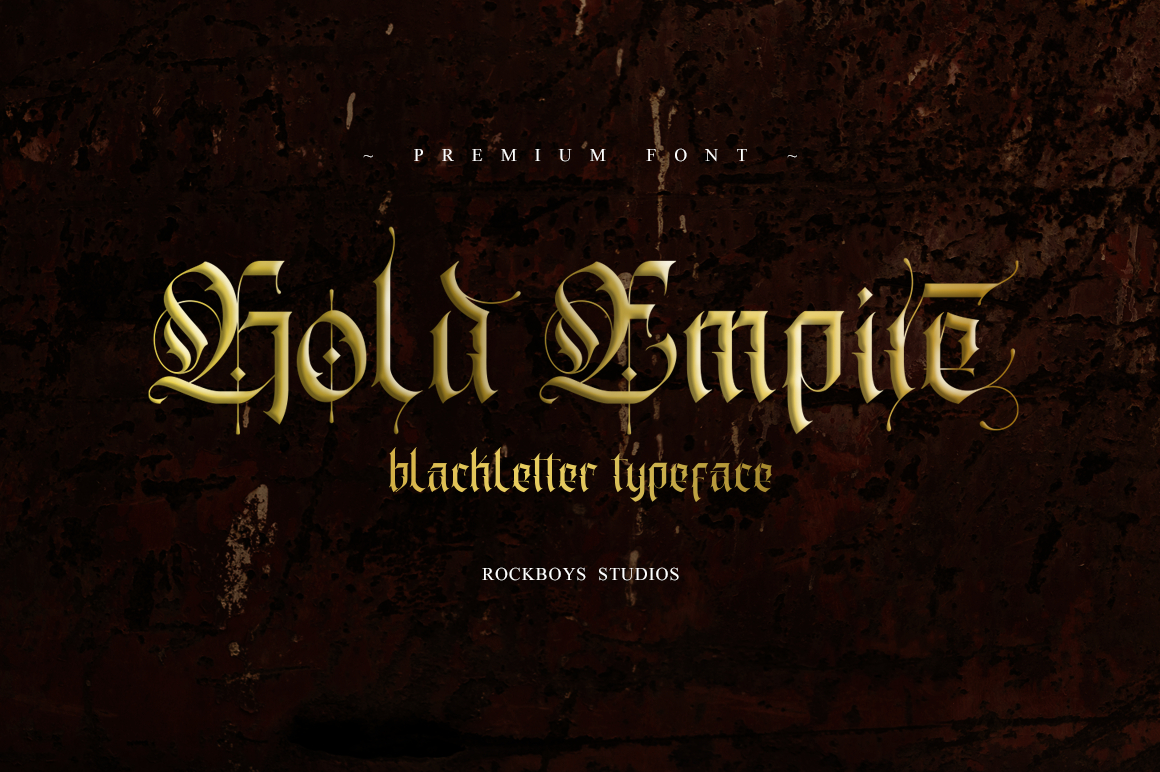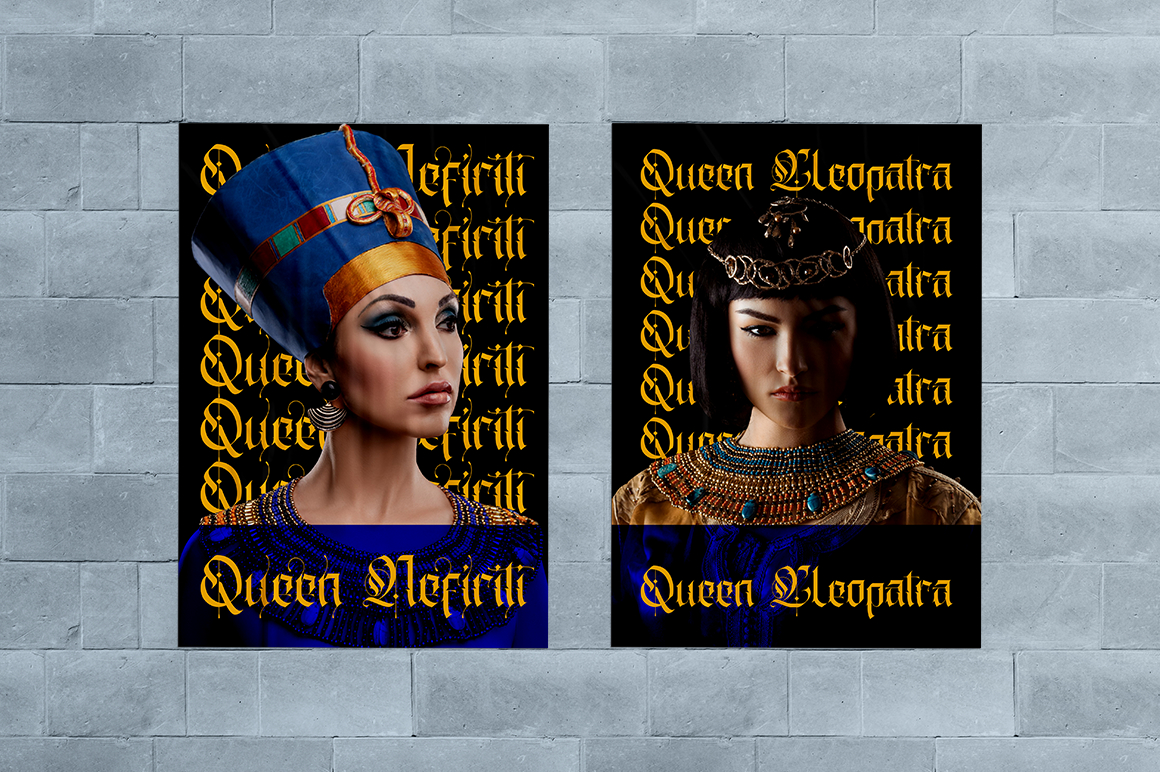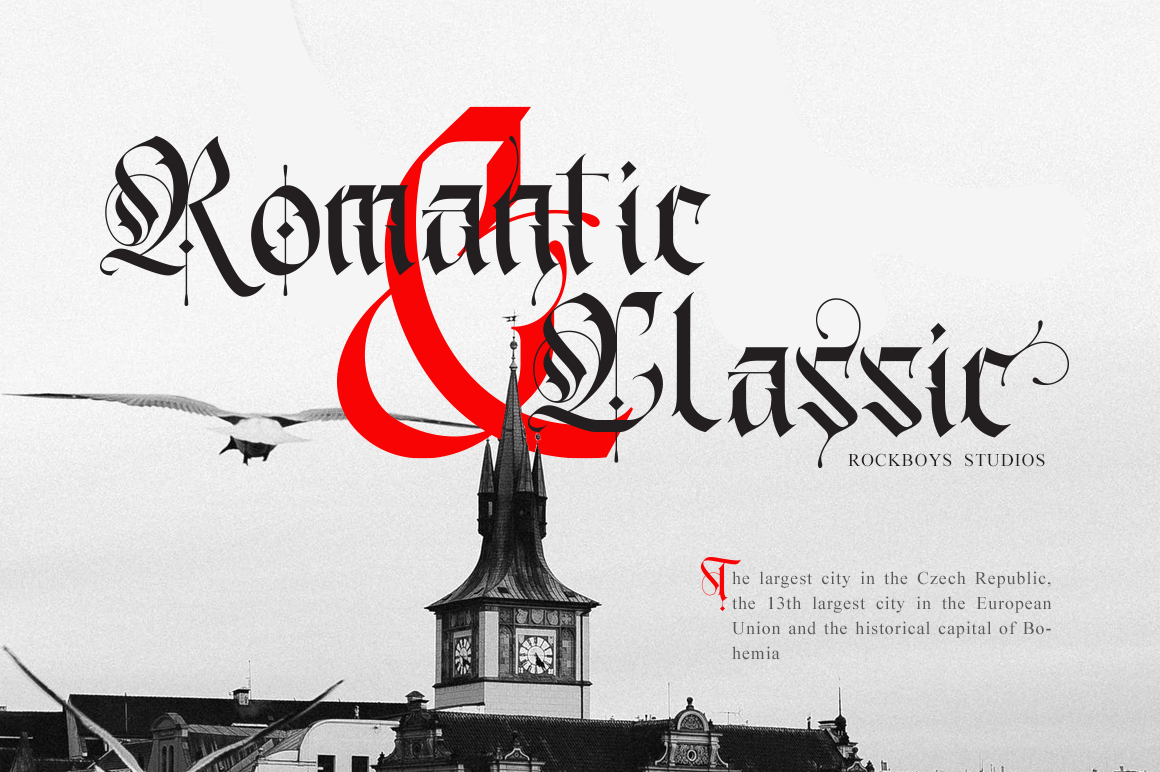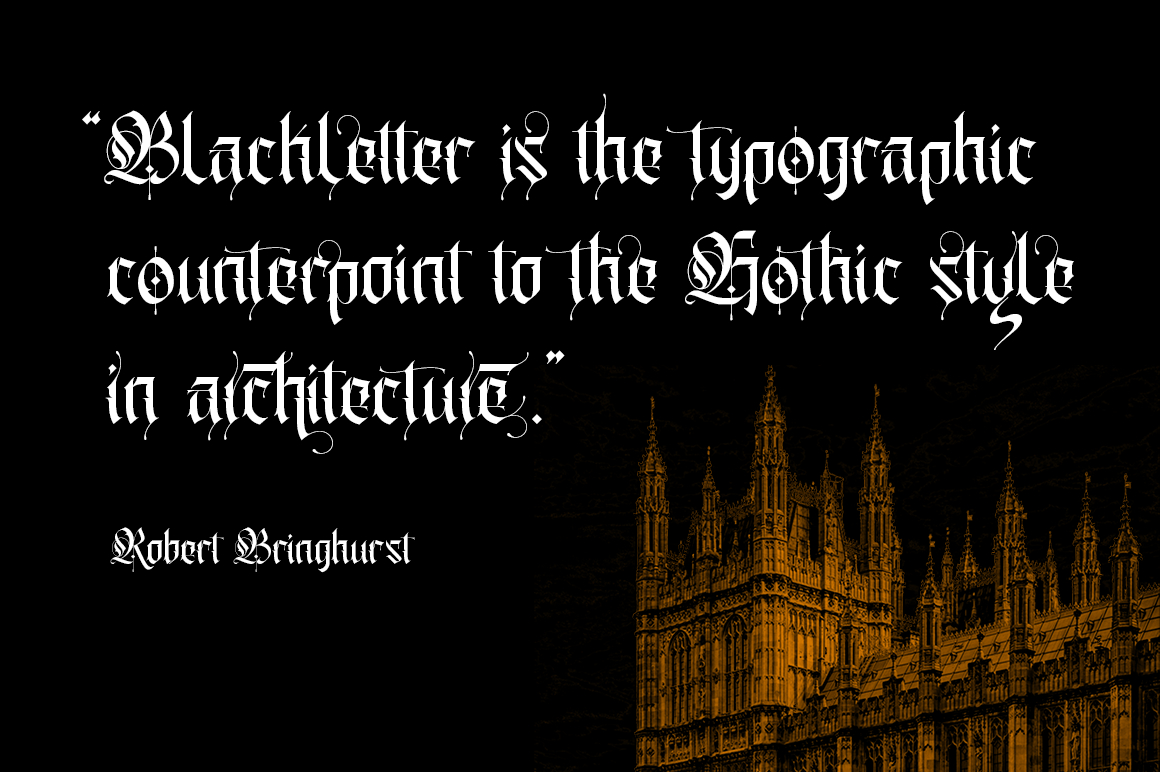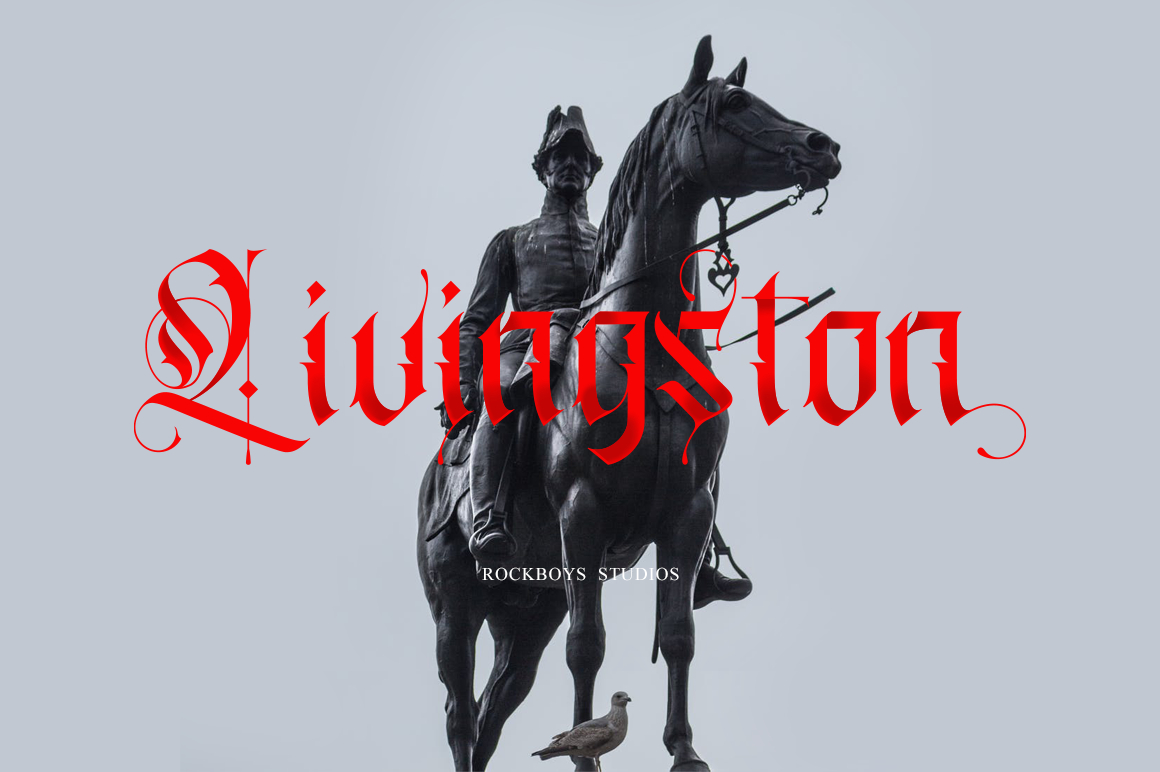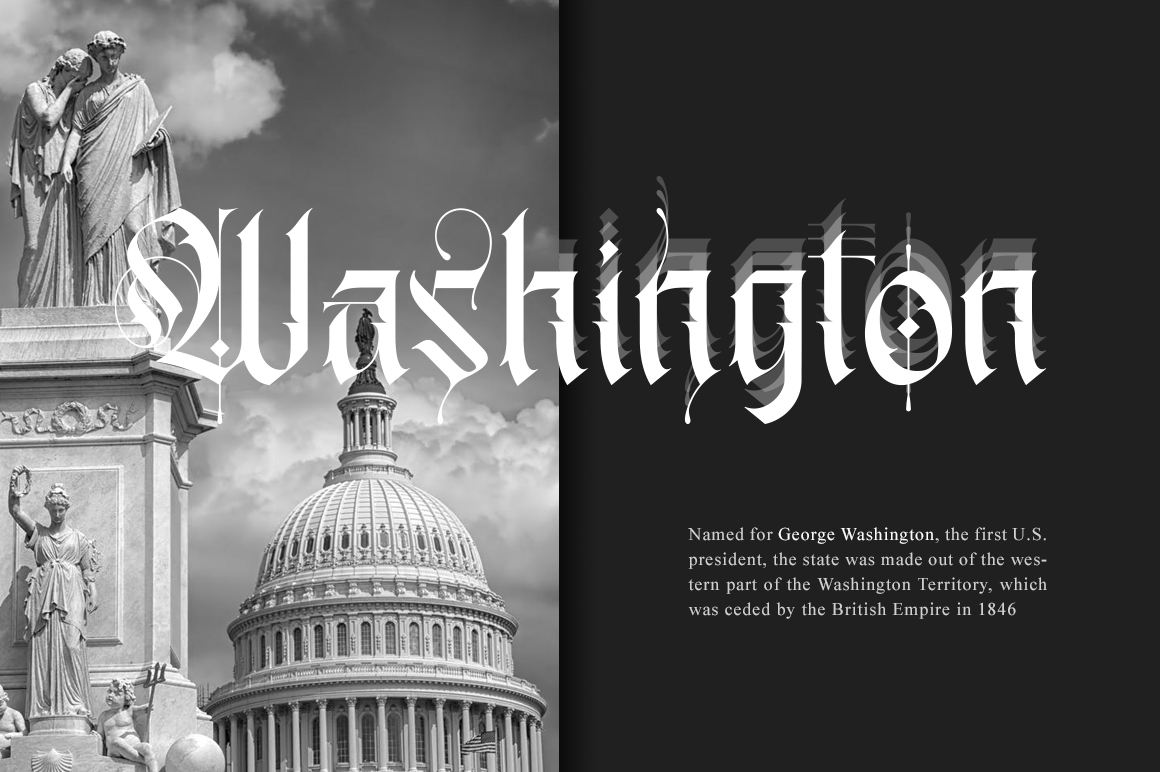
About Gold Empire Font
Gold Empire is a highly detailed and elegant blackletter font. This font is PUA encoded which means you can access all of the glyphs and swashes with ease!